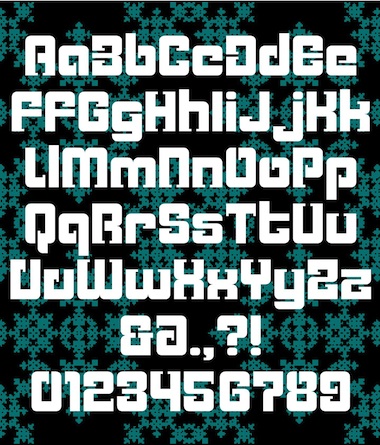
You WAYYYYYYY deserved that Top Pick. Well done! Just I conldn't really read it at first, but I knew you put effort in!
That's so cool! The accents make it so much more versatile!